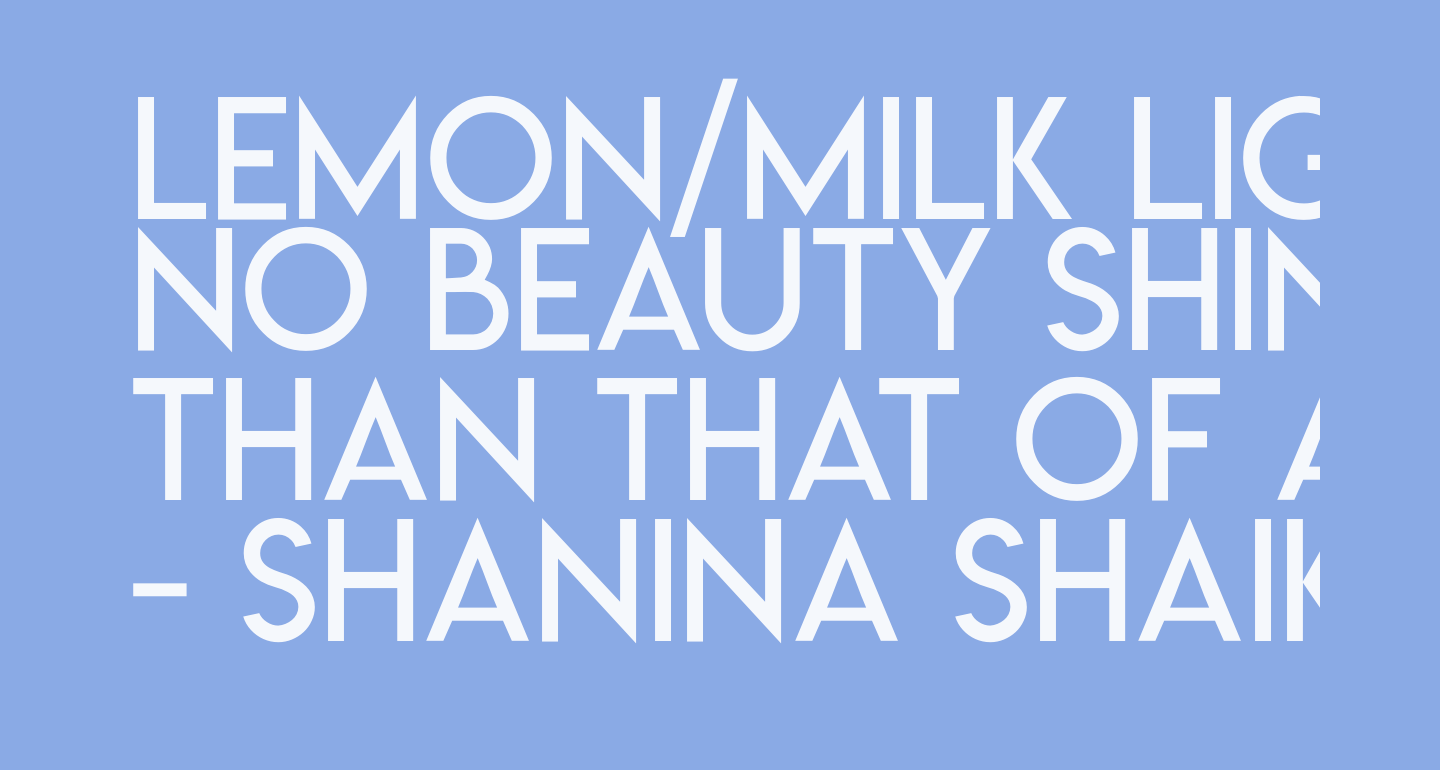
Review Of Lemon Milk Light Font Free Ideas. Web lemon milk pro font jan 29, 2020 lemon milk pro will be your new go to typeface. Web lemon milk font free download.
Today We Introduce A Very Special And Classical Typeface Named Lemon Milk Font.
Web get lemon milk with lowercases, covering extended latin, cyrillic, and greek. Moreover, it now has 18 fonts + 2 variable fonts ranging from thin to heavy.>>. Jan 29, 2020 format :
Web This Standard Font Is Used To Create A Sentimental Sense, And Designers Use It At The Same Time As Working With Past Associated Subjects.